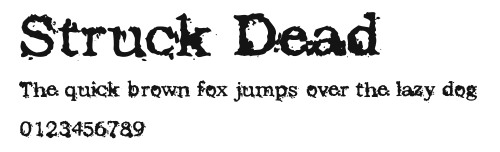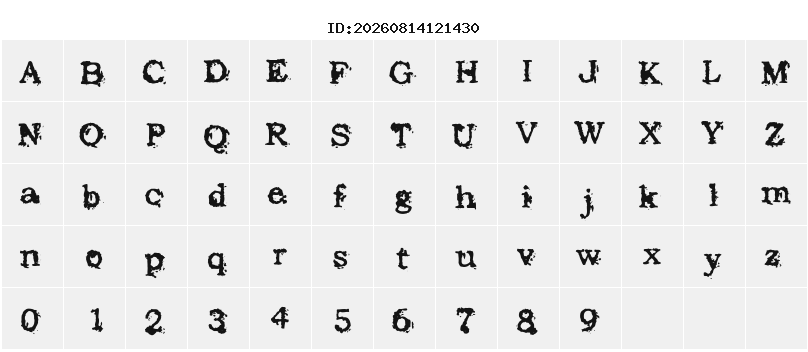
• Font Name: Struck Dead
• Designer: S. John Ross
• Description: An old favorite, put through the wringer. And a minefield. And left with an angry cat for a while.